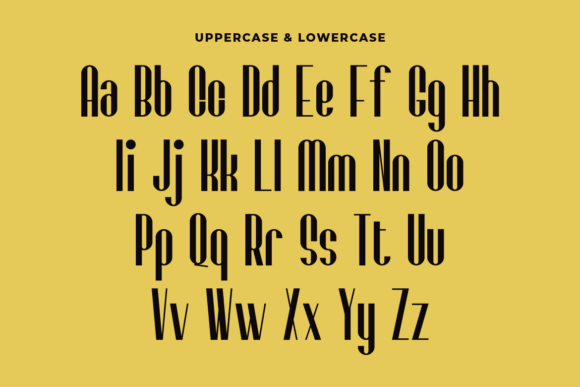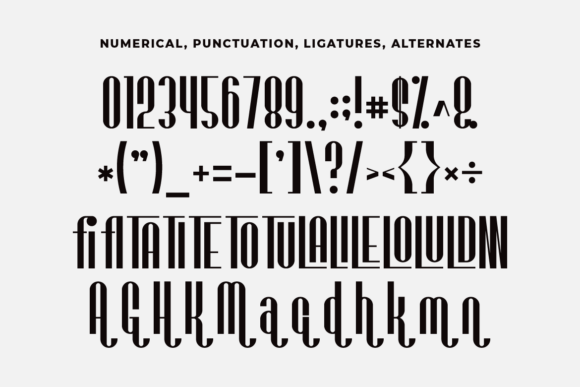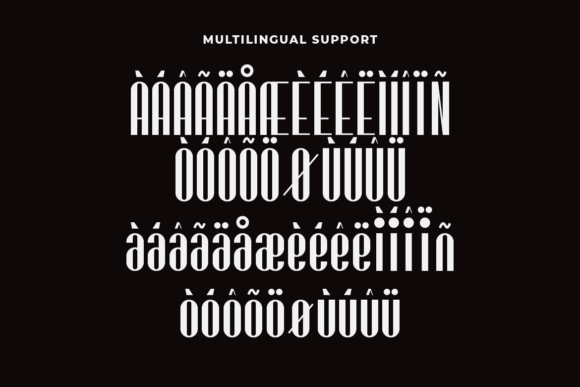
Introduction to Kalibara Font
Kalibara is a clean and stylish sans serif font crafted for modern design needs.
With its geometric structure, smooth curves, and balanced proportions, Kalibara delivers a sleek, professional aesthetic that suits branding, packaging, web design, editorials, and social media visuals .
Key Features of Kalibara Font
Why Choose Kalibara Font?